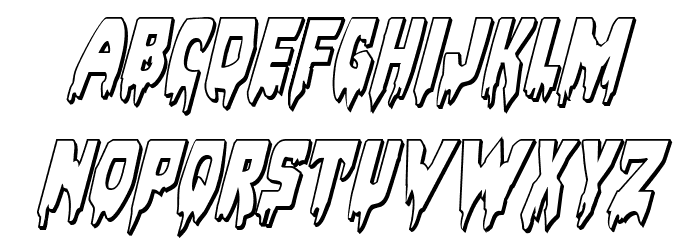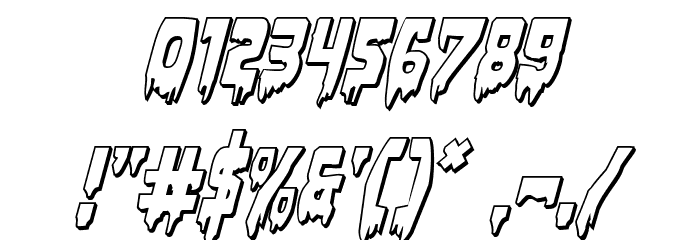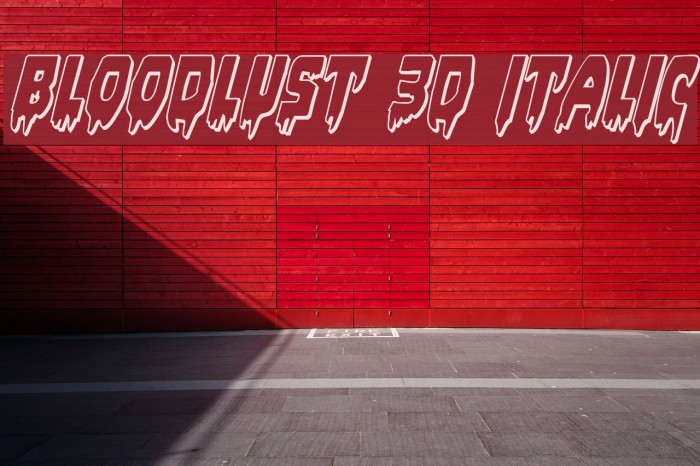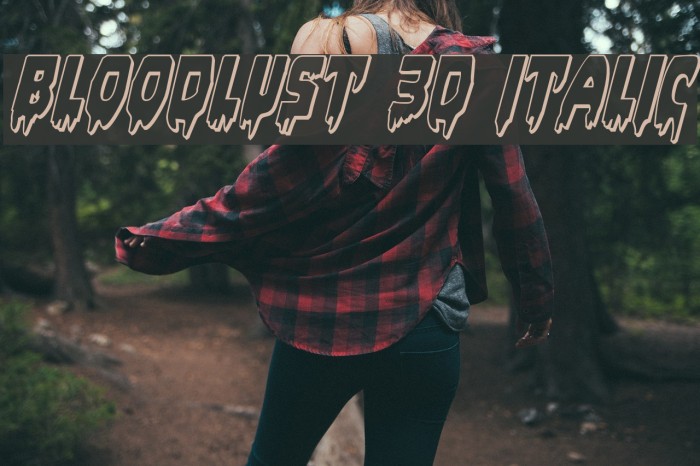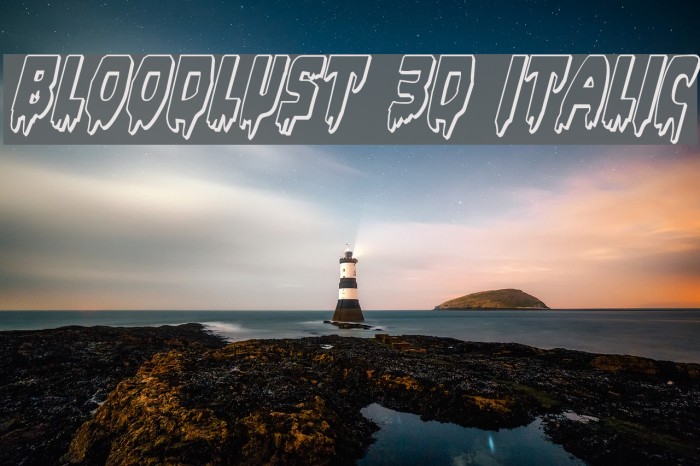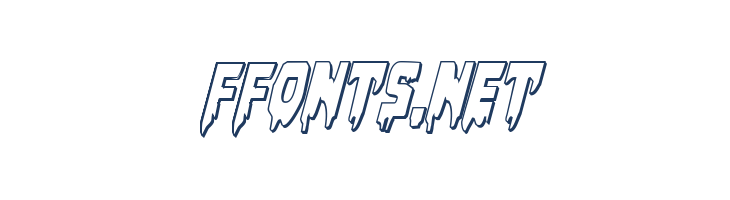
Bloodlust 3D Italic Font
This font features a bold, dramatic style with a 3D effect that gives the impression of dripping or melting. The characters have sharp edges and a slightly italicized slant, enhancing the dynamic and intense appearance. The uppercase and lowercase letters maintain a consistent style, with exaggerated serifs and a unique, horror-themed aesthetic. The numbers and special characters follow the same design principles, ensuring a cohesive look across all elements. This font is ideal for projects that require a bold statement or a spooky, Halloween-inspired theme.
A bold, 3D italic font with a dripping, horror-themed style.
- Proposed Projects: Perfect for Halloween posters, horror movie titles, themed event invitations, and spooky merchandise designs.